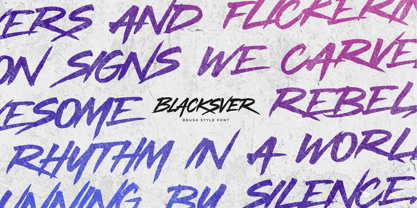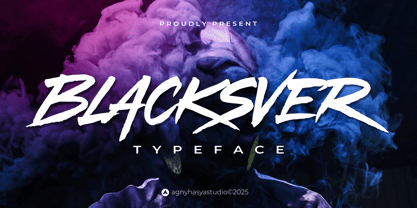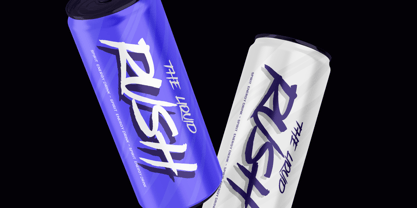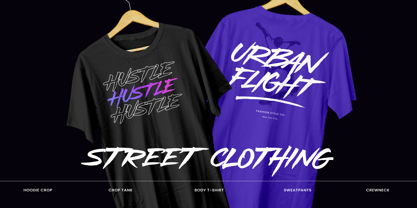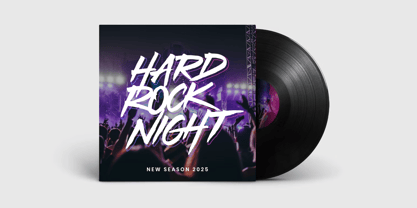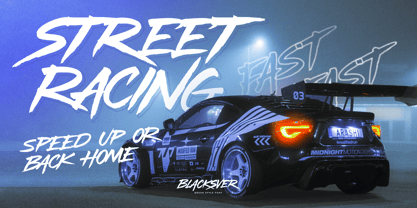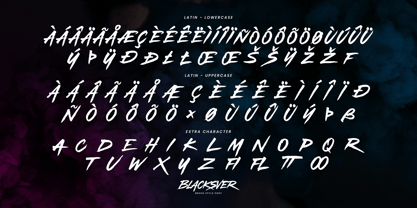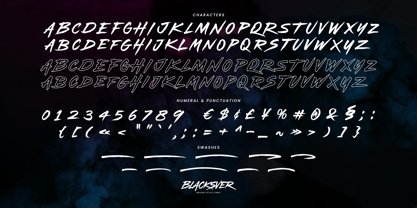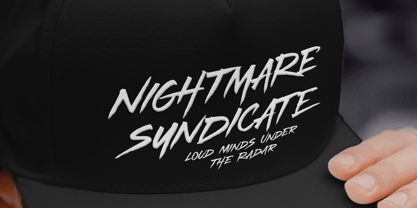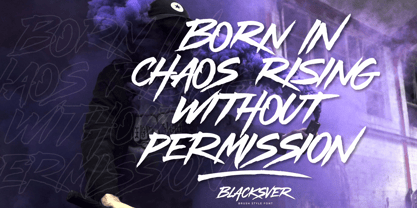
Blacksver
by Agny Hasya Studio
The Blacksver Font Family was designed by Firman Maulana and published by Agny Hasya Studio. Blacksver contains 2 styles and family package options. More about this family
Unleash bold expression with Blacksver, a fearless brush typeface made to roar, rebel, and redefine.
Born for chaos and crafted with punch, this font doesn't follow the rules, it rewrites them. Whether you're designing for music, streetwear, or raw emotion,
Blacksver brings untamed energy and no apologies. Just pure, unfiltered attitude in every stroke.
Blacksver comes in two styles (Regular and Outline) and supports multiple languages, making it ready for global use.
It’s a great fit for logos, visual identities, merch, social media graphics, and more.
Designers: Firman Maulana
Foundry: Agny Hasya Studio